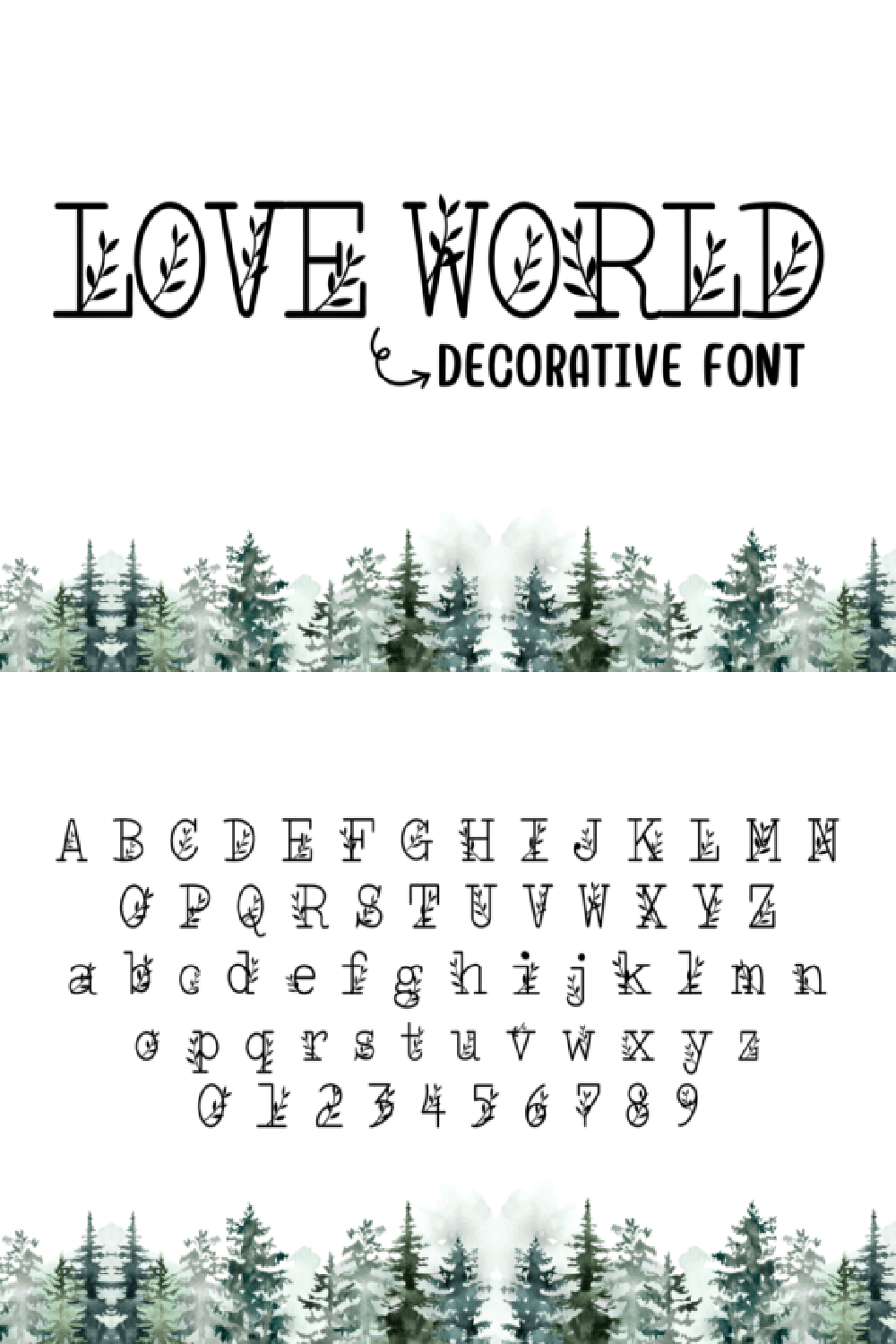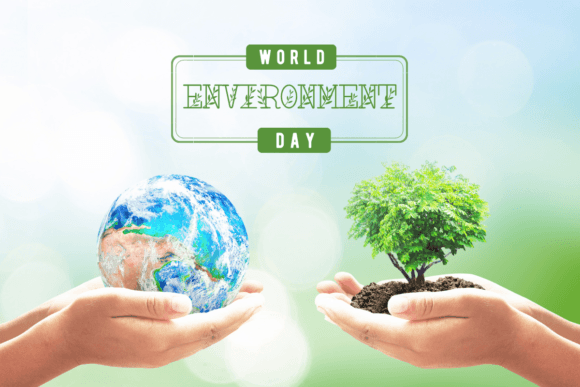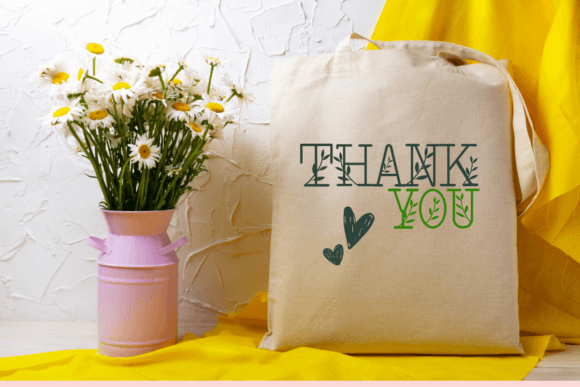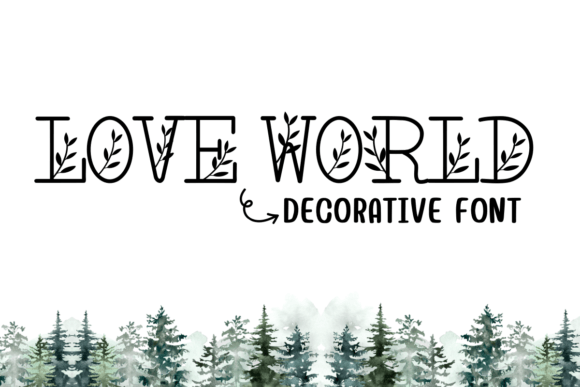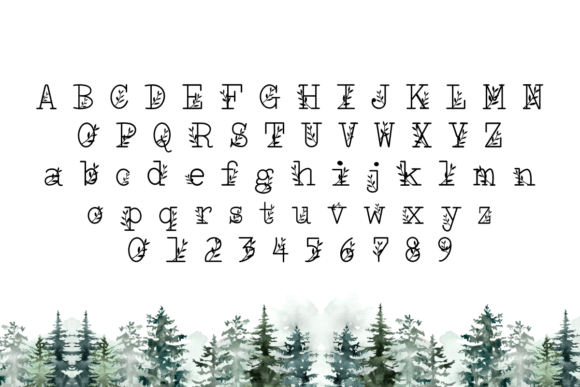
Love World Font: A Whimsical & Decorative Font for DIY Projects
About the Love World Font
Let us introduce you to Love World Font, where timeless design meets modern craftsmanship. Love World is a delightful handwritten decorative font that adds a touch of charm to your projects. Its unique feature includes vines gracefully rising from the letters, giving your text a whimsical and organic feel. Perfect for expressing love and creativity, this font brings a playful elegance to your designs. Whether crafting invitations, love notes, or any project that deserves a sweet and decorative touch, Love World is your go-to choice for a warm and inviting vibe.
Love World thrives in applications requiring a whimsical, handcrafted feel. It excels in headlines, short text blocks on invitations, greeting cards, and packaging for products emphasizing natural or romantic themes. Avoid using it for body text or long paragraphs; its decorative nature hinders readability in extended use. The organic vine details might also clash with the clean aesthetic needed in UI design.
Its playful elegance pairs well with crisp sans-serif fonts like Montserrat for a balanced contrast, or with a classic serif like Garamond for a touch of sophisticated charm. For a more modern feel, consider pairing it with a geometric sans-serif such as Futura.
Love World’s core personality is undeniably playful and romantic, yet possesses a subtle elegance. This makes it ideal for brands focused on artisanal goods, wedding stationery, or anything conveying a lighthearted yet sophisticated message.